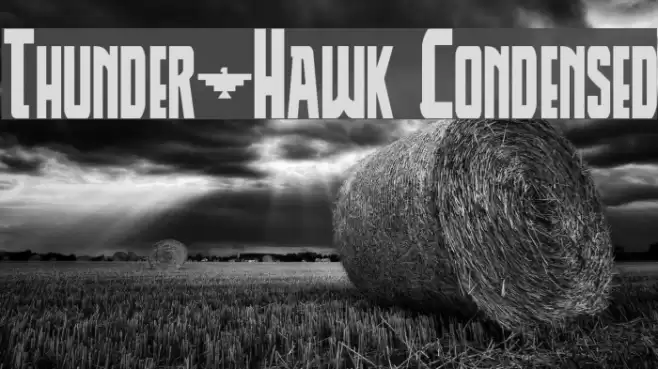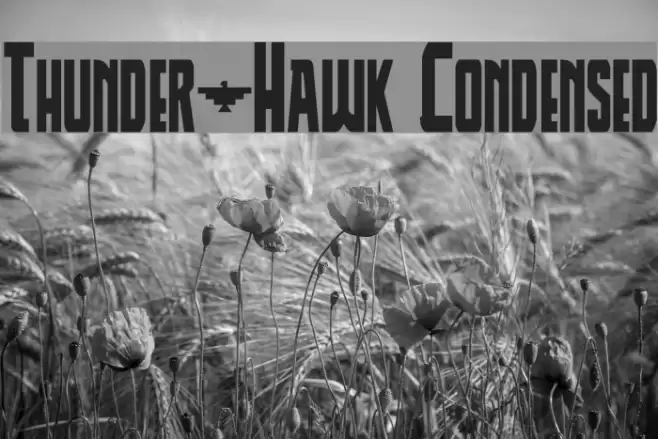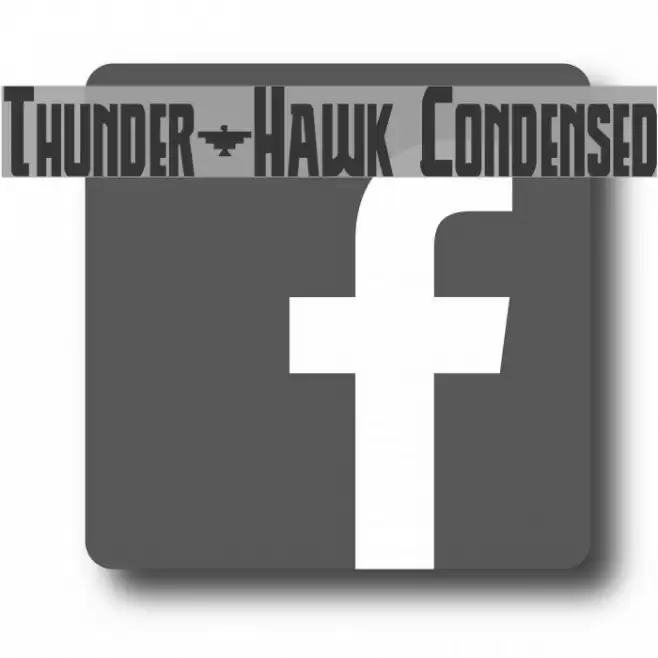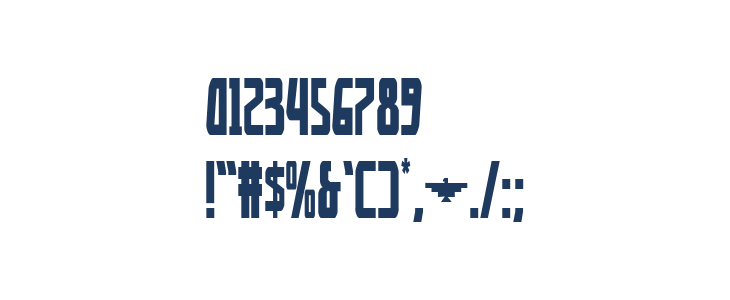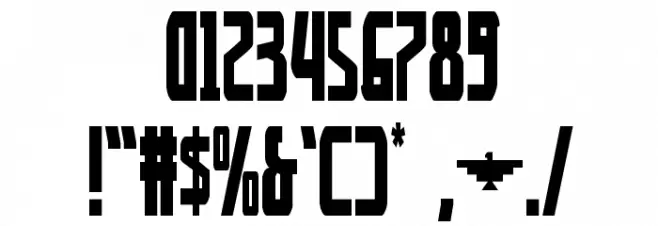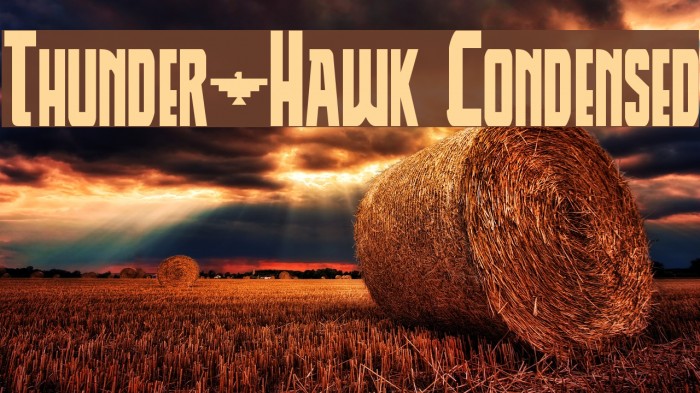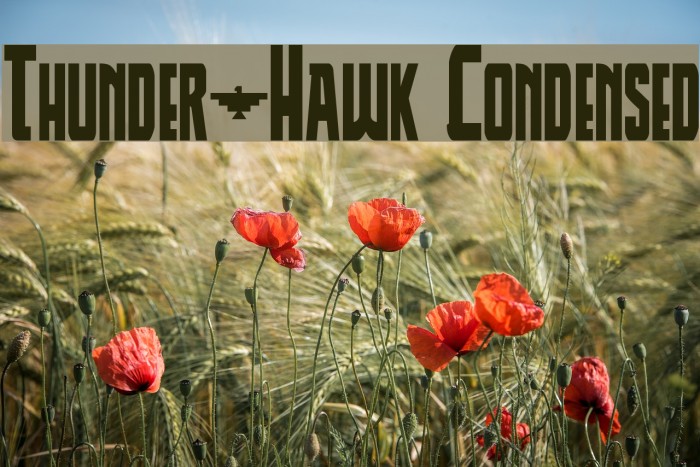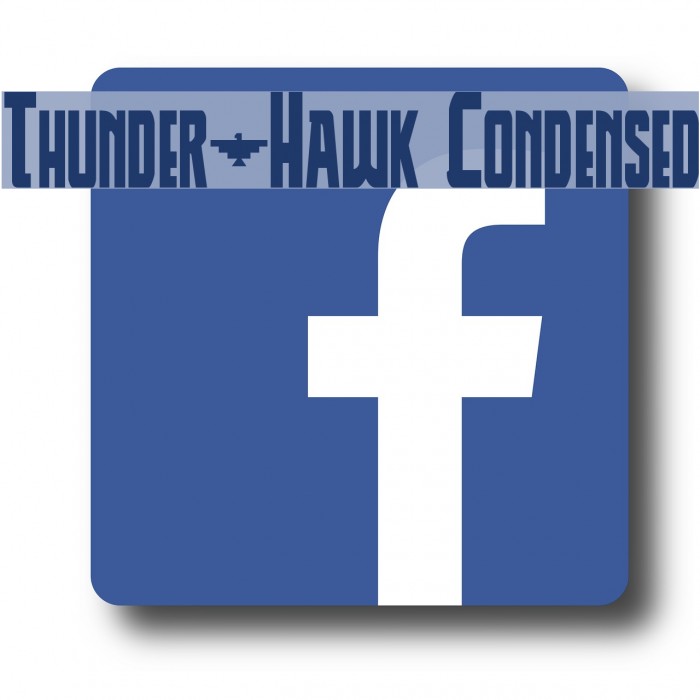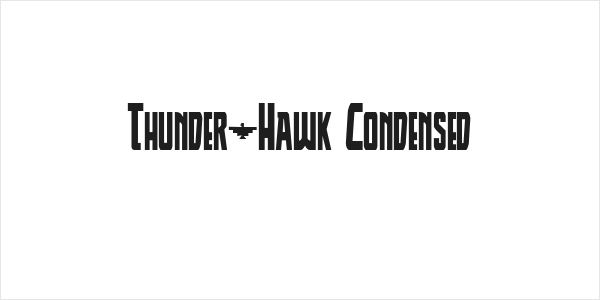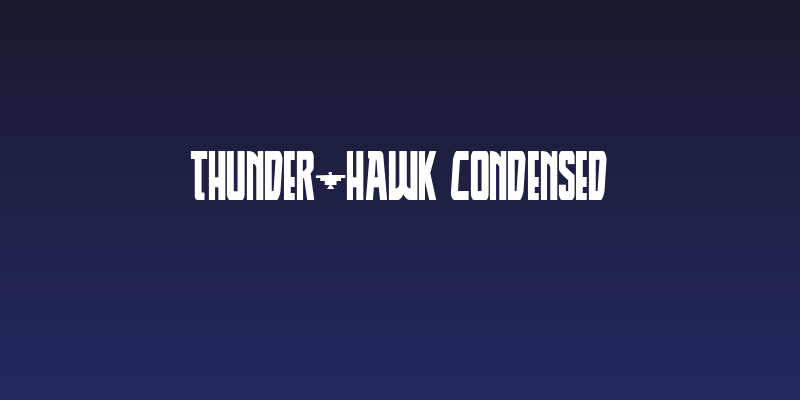
Thunder-Hawk Condensed Font
Thunder-Hawk Condensed Description
This font features a bold and condensed style with a strong geometric structure. The uppercase letters are tall and narrow, giving a powerful and impactful appearance. The characters have a uniform stroke width, contributing to a clean and modern look. The numbers and special characters maintain the same boldness and condensed form, ensuring consistency across all elements. This font is designed to capture attention and convey strength, making it ideal for headlines and logos.
A bold, condensed font with a geometric and modern style from Uncategorized fonts.
- Proposed Projects: Ideal for use in branding, sports team logos, posters, and any design requiring a strong visual impact.
- Character Spacing: Tight